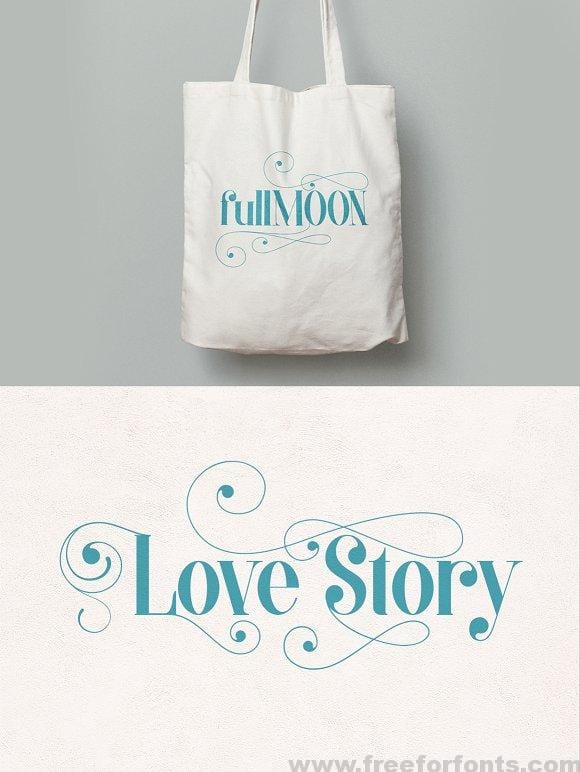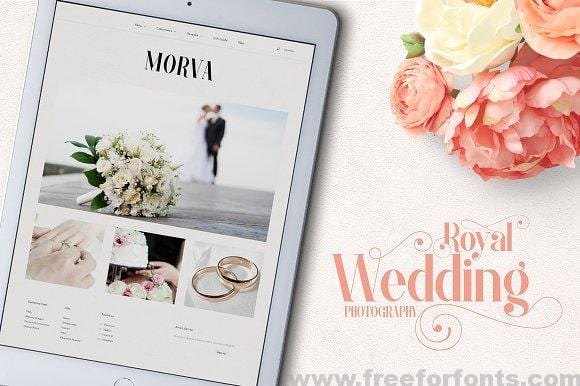
Morva font has a unique character when as compared with the others serif font it has unique bracketed serif shape and integrates with beautiful swirl decorations.
Morva typeface font free download. 1001 free fonts is the home of free fonts since 1998. Morva typeface is suitable for simple logo design website header wedding design menu fonts for website. Morva font has a unique character when as compared with the others serif font it has unique bracketed serif shape and integrates with beautiful swirl decorations. An easy and delightful font made with patience and passion.
The licence mentioned above the download button is just an indication. Morva typeface have a unique character when compared with the others serif font it have special bracketed serif shape and combine with beautiful swirl ornaments. This font is demo a z a z 0 9 and free for personal and commercial use but any donation are very appreciatedvisit my store for more great. Morva typeface font download free in ttf otf zip format.
646742 downloads 154 yesterday demo 2 font files. Onlinewebfontscom is internet most popular font online download websiteoffers more than 8000000 desktop and web font products for you to preview and download. Morva typeface have a unique character when compared with the others serif font it have special bracketed serif shape and combine with beautiful swirl ornaments. Morva typeface is suitable for simple logo design website header wedding design menu fonts for website.
The fonts presented on this website are their authors property and are either freeware shareware demo versions or public domain. Login register. To design fashion and others who have a minimalist and simple concept. Morva typeface is suitable for simple logo design website header wedding design menu fonts for website.
Font all free. Morva typeface have a unique character when compared with the others serif font it have special bracketed serif shape and combine with beautiful swirl ornaments. Please look at the readme files in the archives or check the indicated authors website for details and contact himher if in doubt. To design fashion and others who have a minimalist and simple concept.
It is suitable for simple brand layout internet site header wedding ceremony layout menu fonts for the internet site. An easy and delightful font made with patience and passion.